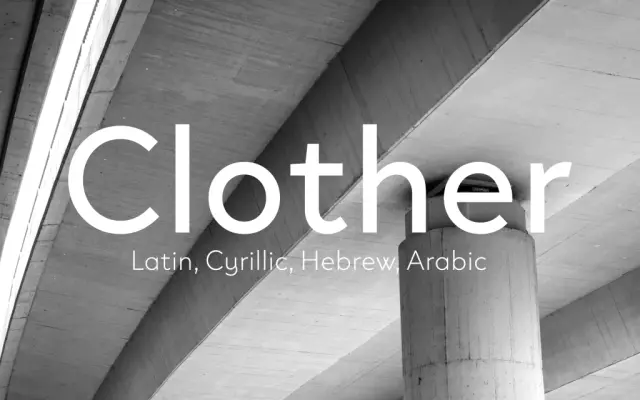
A low-contrast geometric sans covering Latin, Cyrillic, Arabic and Hebrew, built for multinational corporate and communication work.
Near-monolinear letterforms and geometric proportions give Clother a clean, professional tone suited to reports, presentations and brand systems that must function across multiple scripts. The family ships in four weights from Light to Black with matching italics, variable fonts for both the Latin and Arabic, and a dedicated Clother Arabic subfamily. Script coverage extending to Cyrillic, Hebrew and Arabic makes it a practical choice for organisations communicating across diverse markets.
Low-contrast, near-monolinear letterforms with geometric construction place it firmly in the geometric sans tradition. The page describes it explicitly as a geometric sans serif.